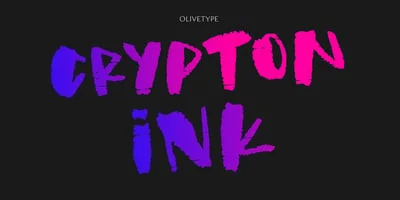
Crypton Ink Font
Crypton Ink Font is perfect for cybersecurity branding, blockchain technology campaigns, digital encryption services, fintech startup identity, cryptocurrency exchange materials, tech security conferences, hacker-proof software design, digital privacy advocates, cyber defense graphics, and secure applications that require cutting-edge technological sophistication and unbreakable digital protection.
What makes Crypton Ink Font truly exciting is its revolutionary fusion of cryptographic precision and digital ink artistry that creates an uncrackable visual code for modern cybersecurity communications. This exceptional typeface embodies the essence of digital protection with its encrypted letterforms and secure character design that convey both technological advancement and impenetrable security. The font's crypto-powered personality and digital defense capabilities make it perfect for tech companies seeking to communicate data protection, digital trust, and the sophisticated encryption technologies that safeguard valuable information in our interconnected digital world.
The Crypton Ink Font family includes multiple weights and styles: Light, Regular, Medium, Bold, and Encrypted variations designed for maximum security impact. Each family member maintains the distinctive cryptographic character while offering flexibility for diverse cybersecurity applications and digital protection branding systems. The comprehensive character set supports advanced typography needs and security design elements, making it suitable for international cybersecurity communications.
When you choose Crypton Ink Font, you're selecting a typography fortress that delivers unbreakable digital credibility and cyber-grade security excellence. This encrypted typeface excels in applications where digital protection and technological trust are paramount, delivering exceptional security appeal while maintaining cutting-edge authenticity. Whether you're designing cybersecurity brands, blockchain platforms, fintech services, or digital protection campaigns, this font provides the cryptographic sophistication and digital security that resonates with tech-savvy audiences who appreciate advanced encryption, data protection, and the essential cybersecurity technologies that protect our digital future.